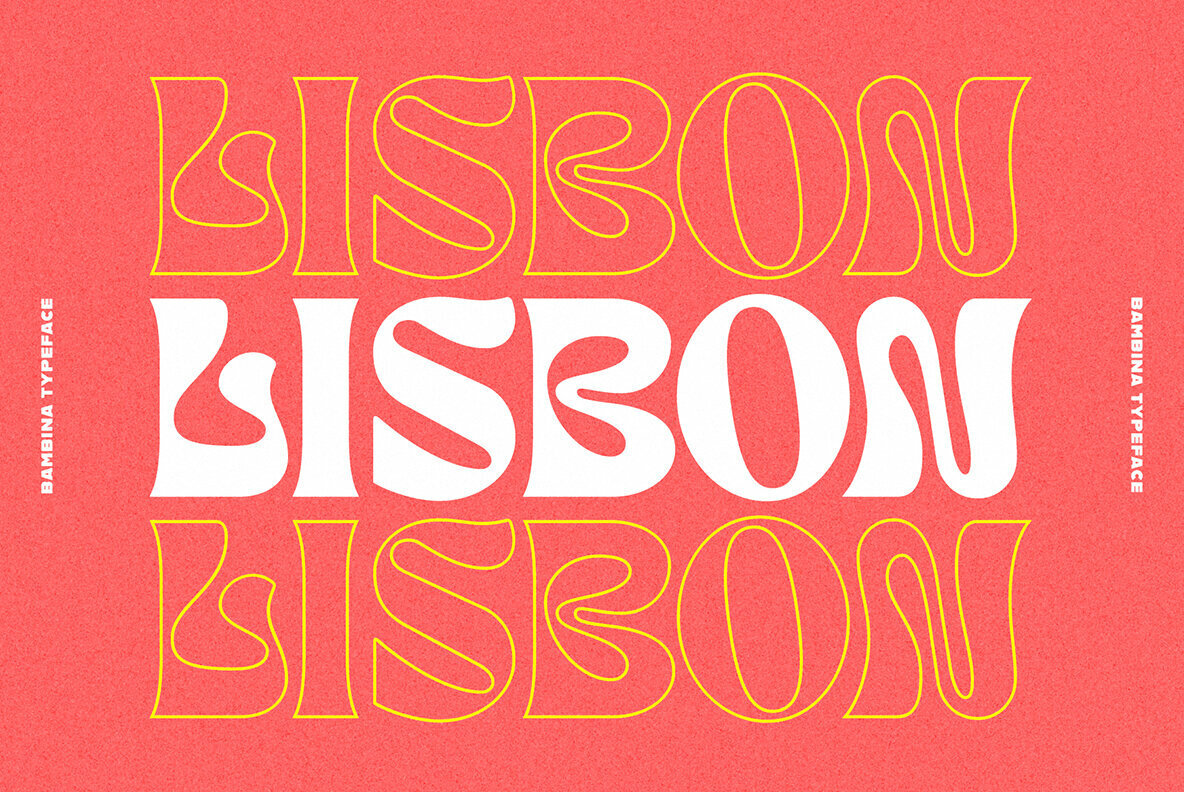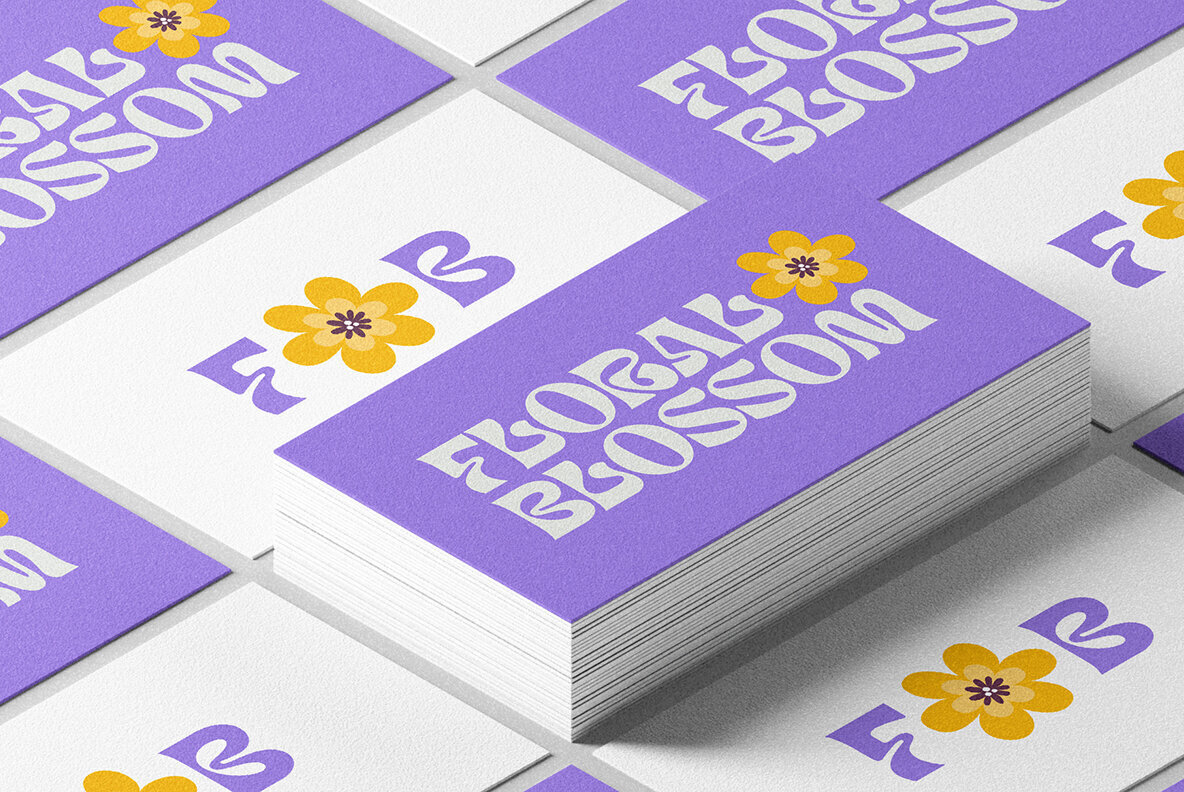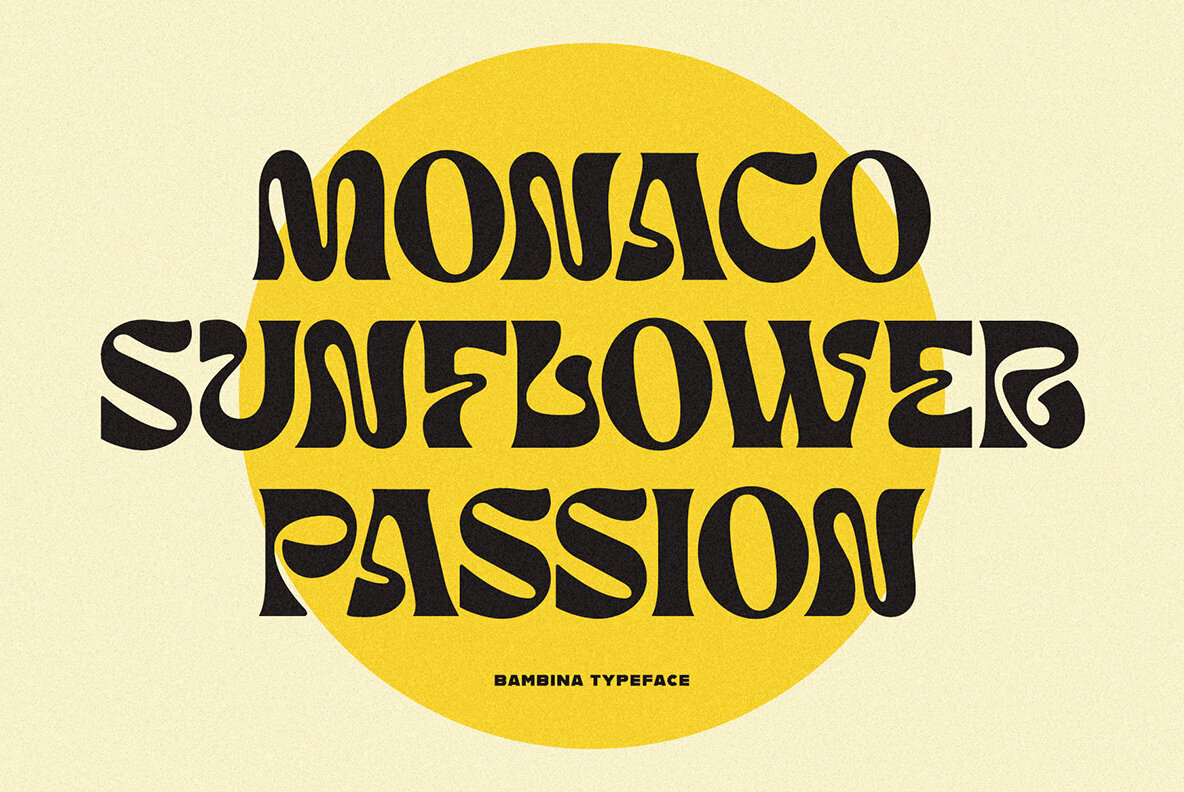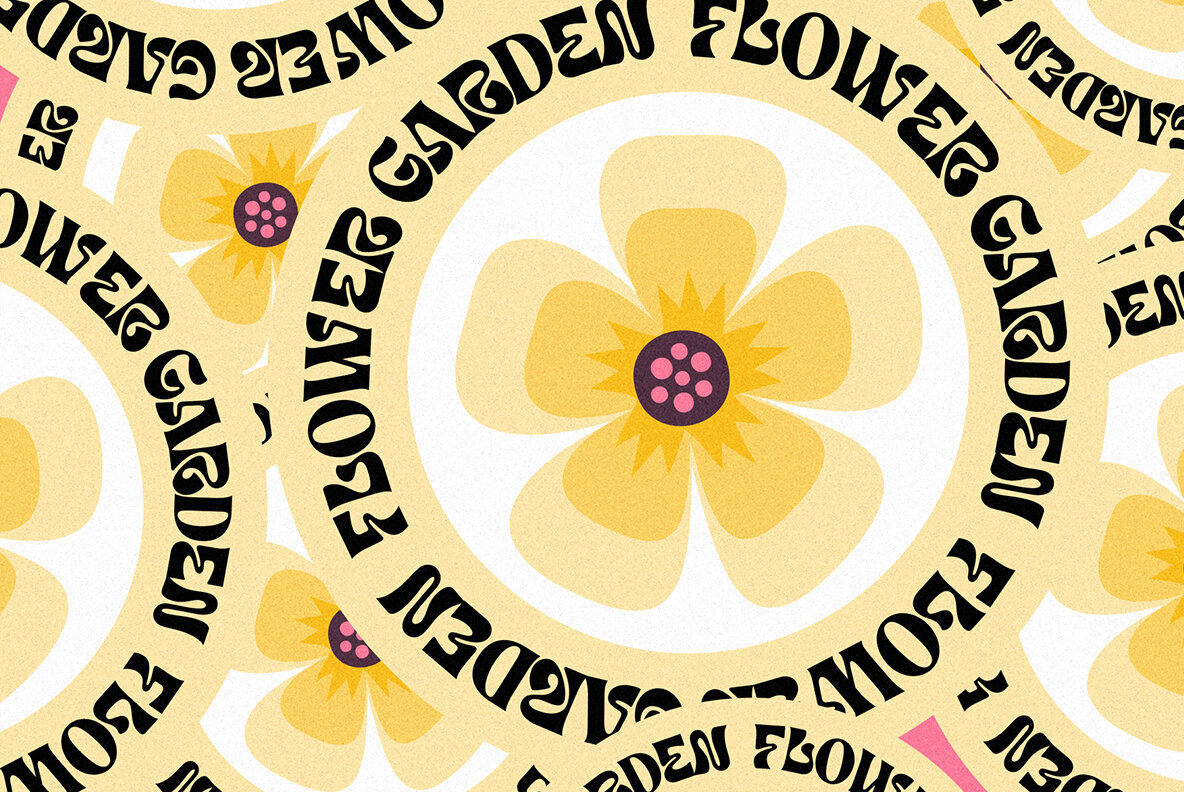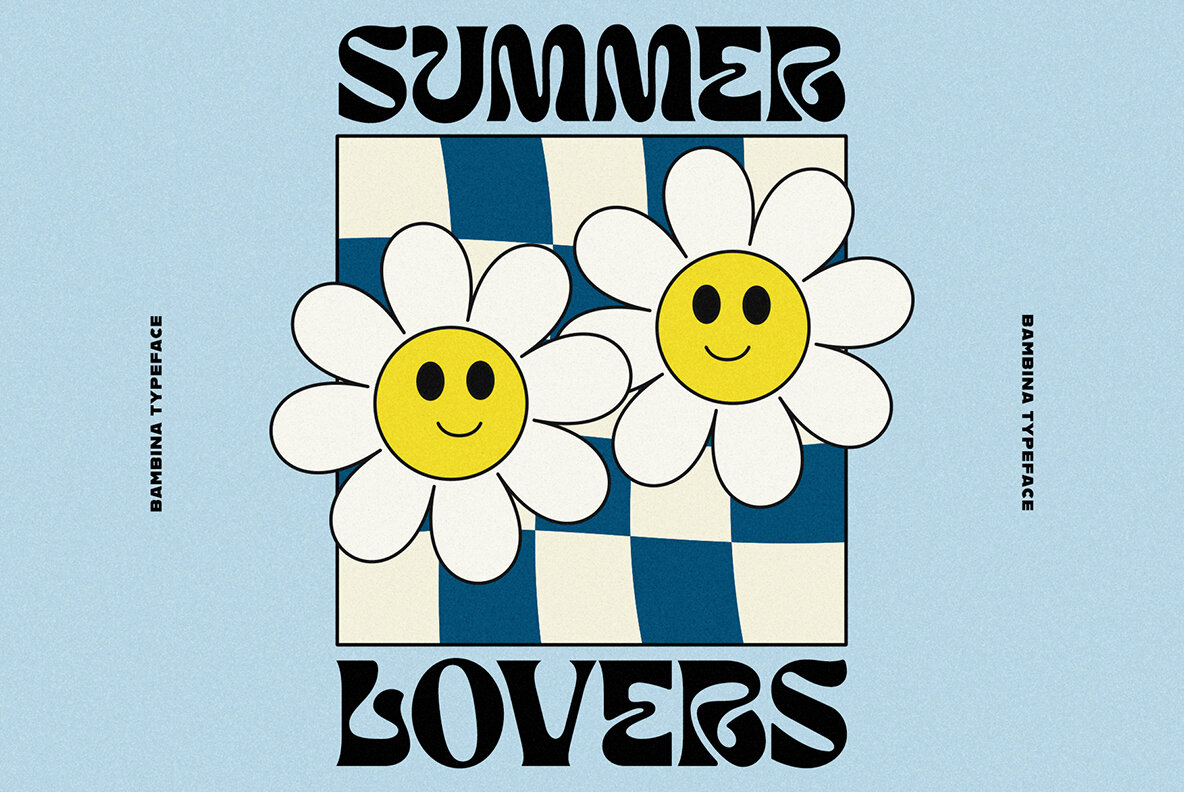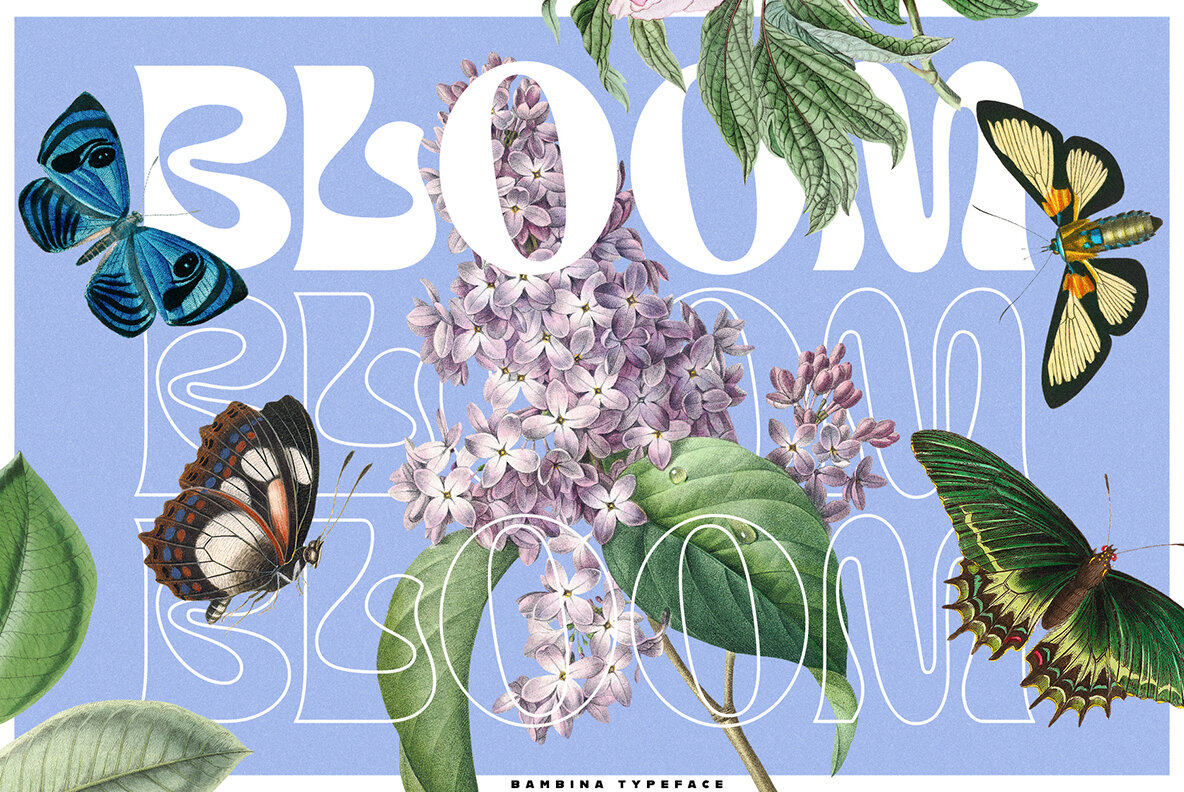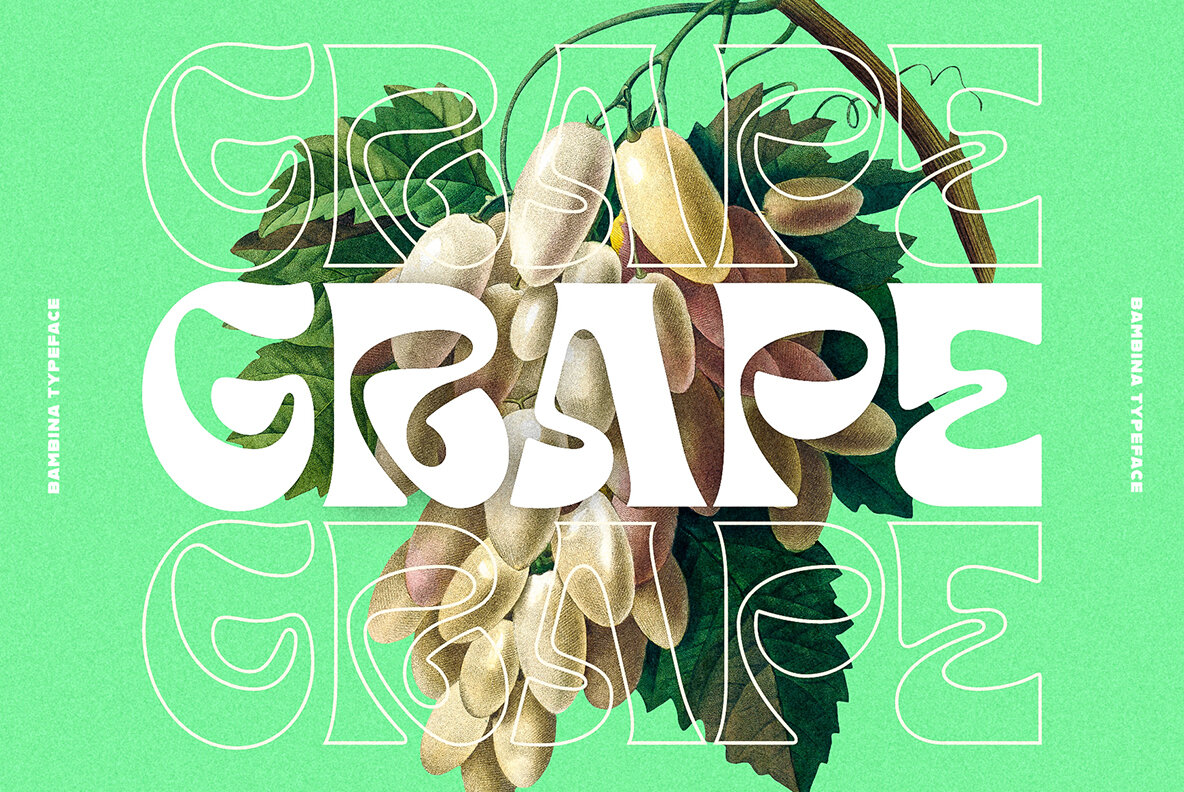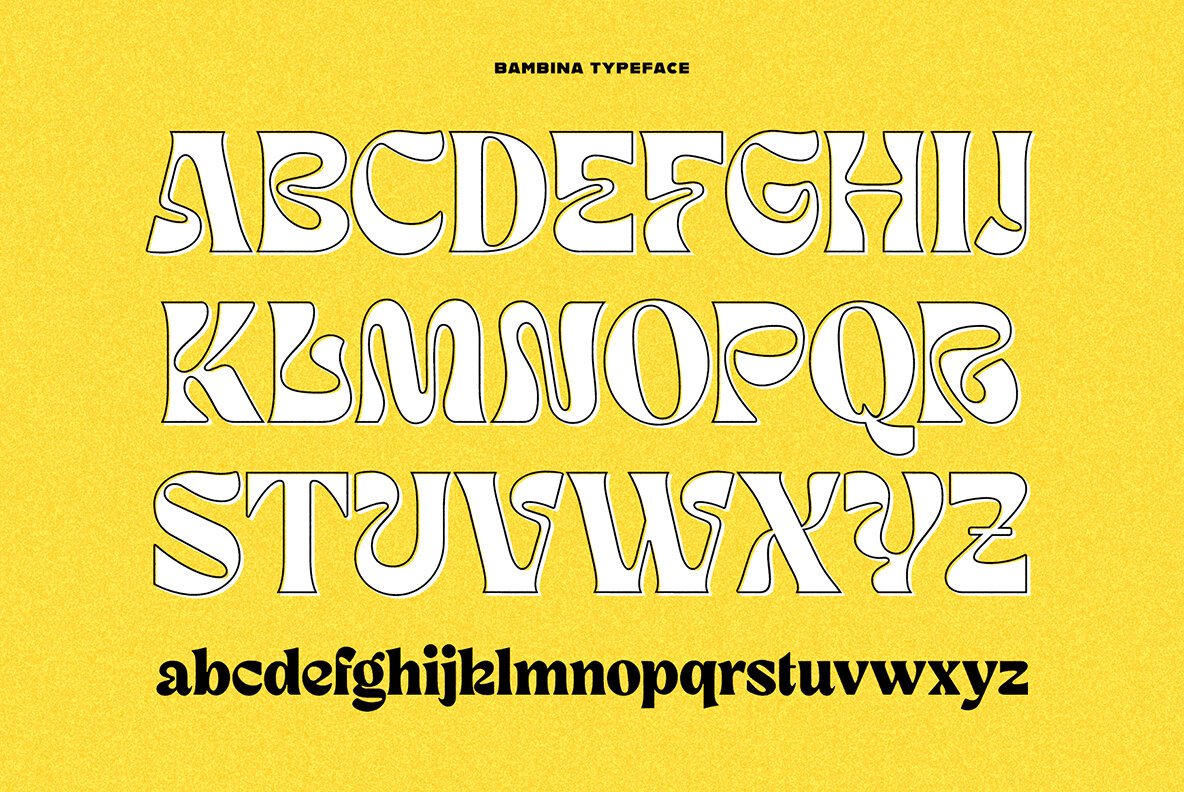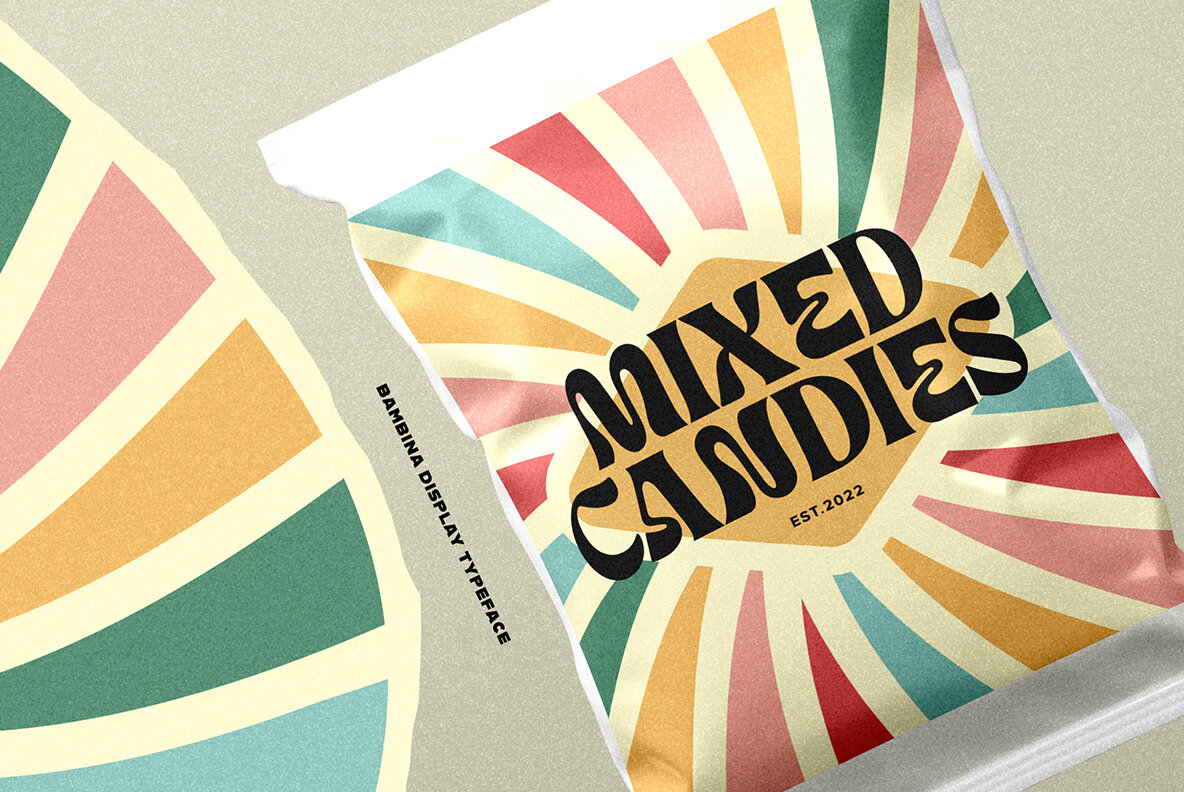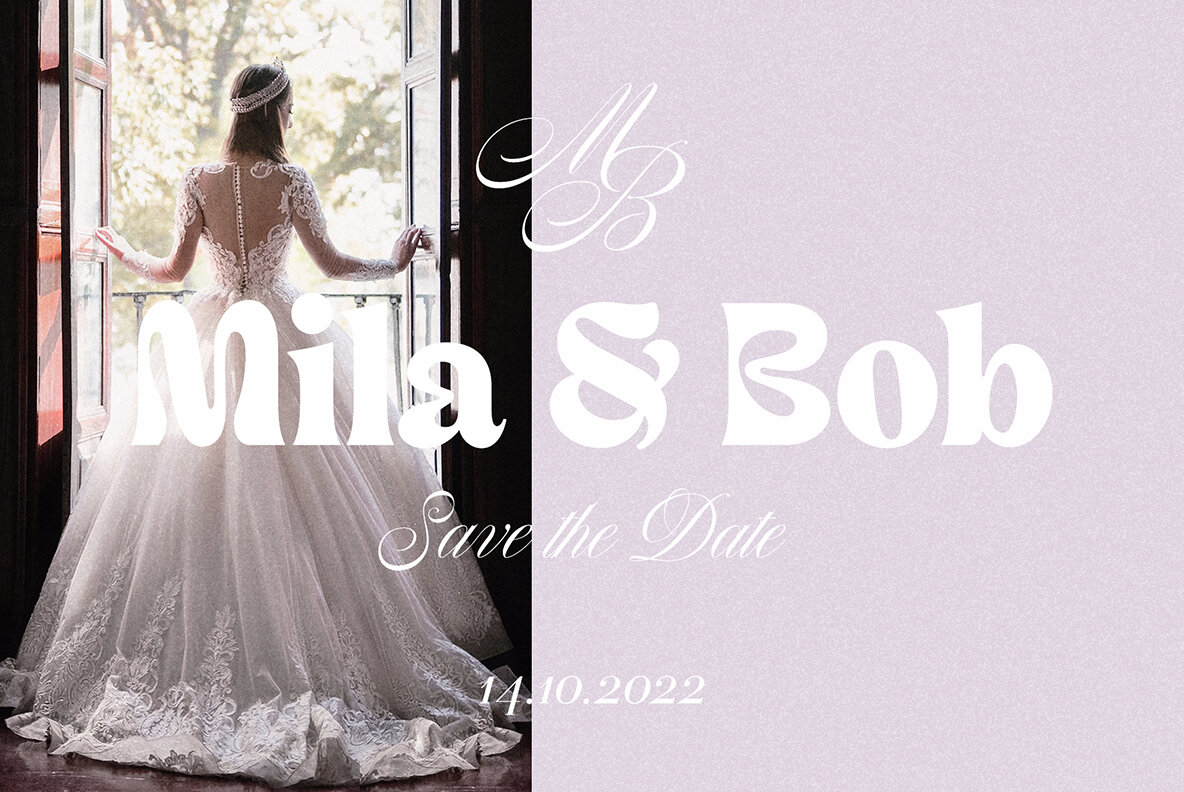
Bambina Font
Bambina font is both a stylish and legible typeface. It makes for great headings or text-based designs, with two different versions to suit any need - Regular & Outline.